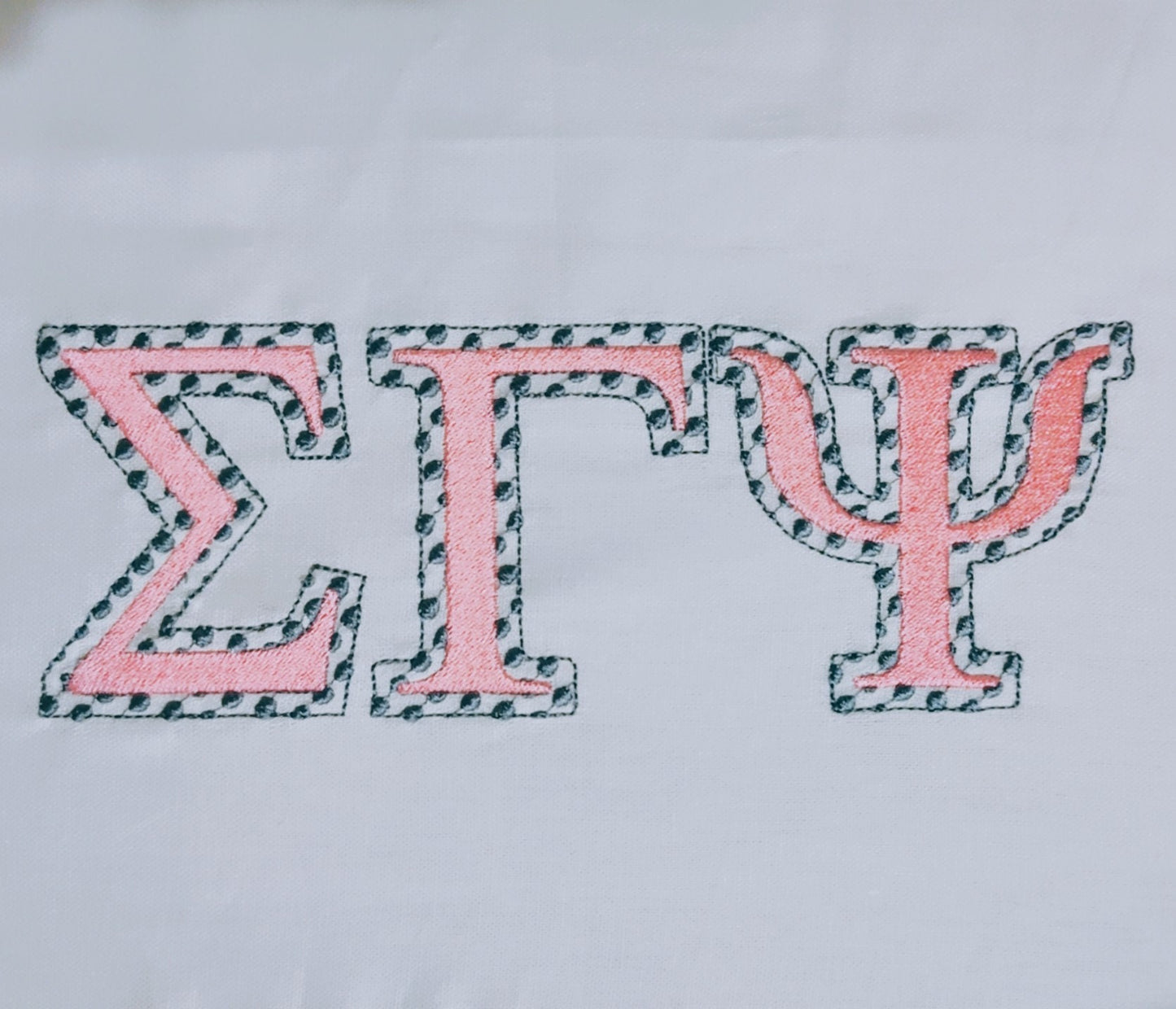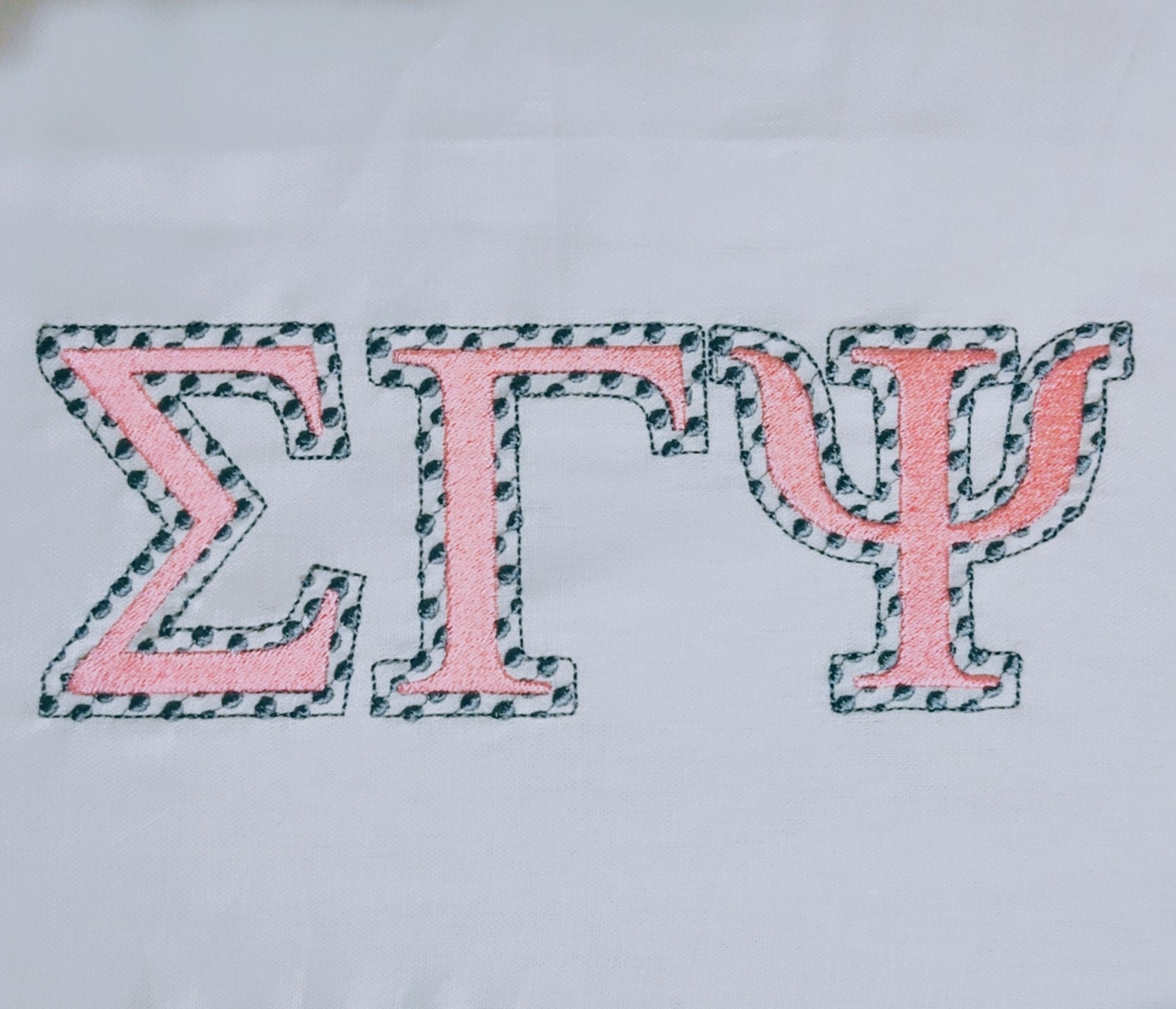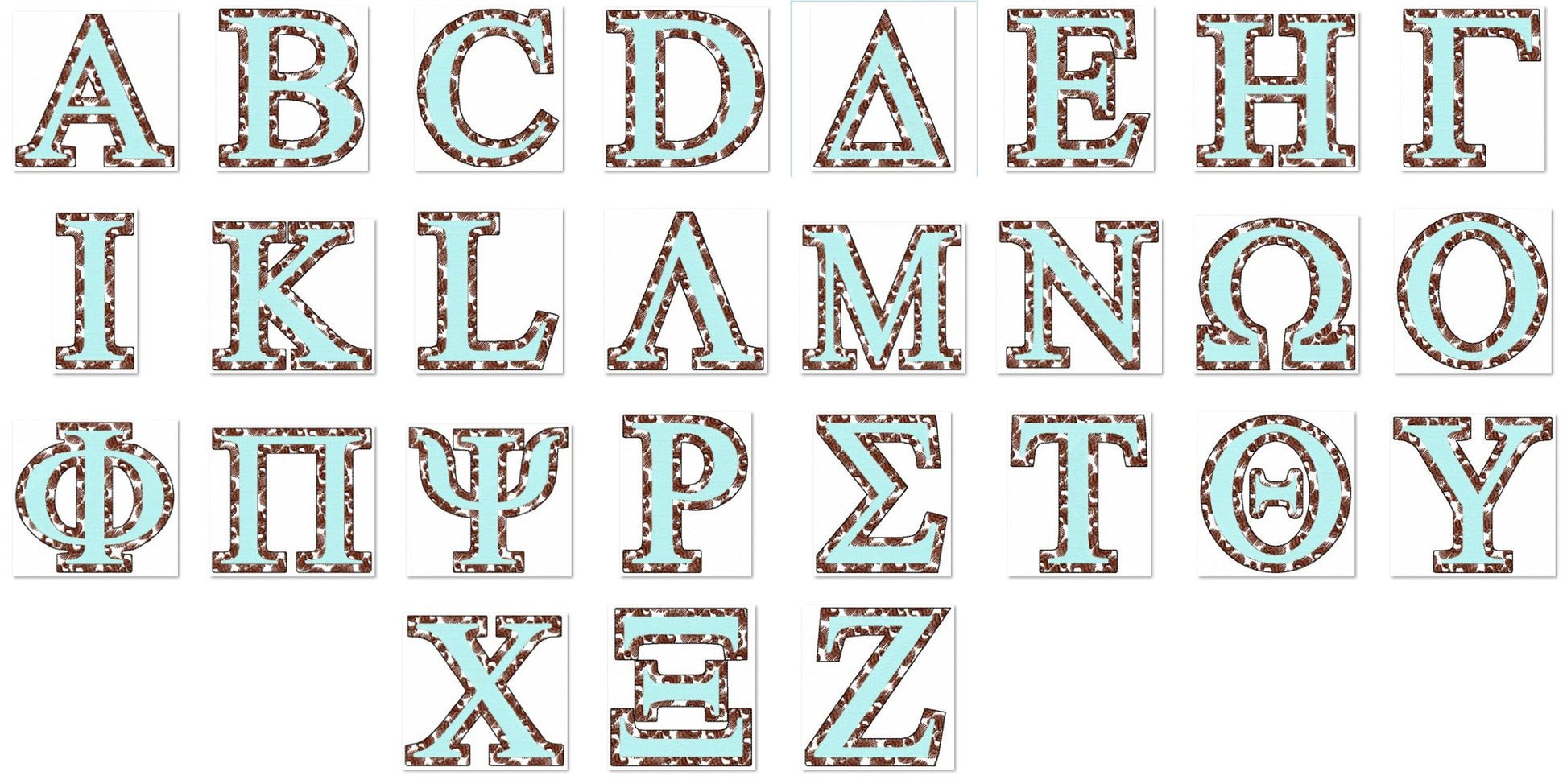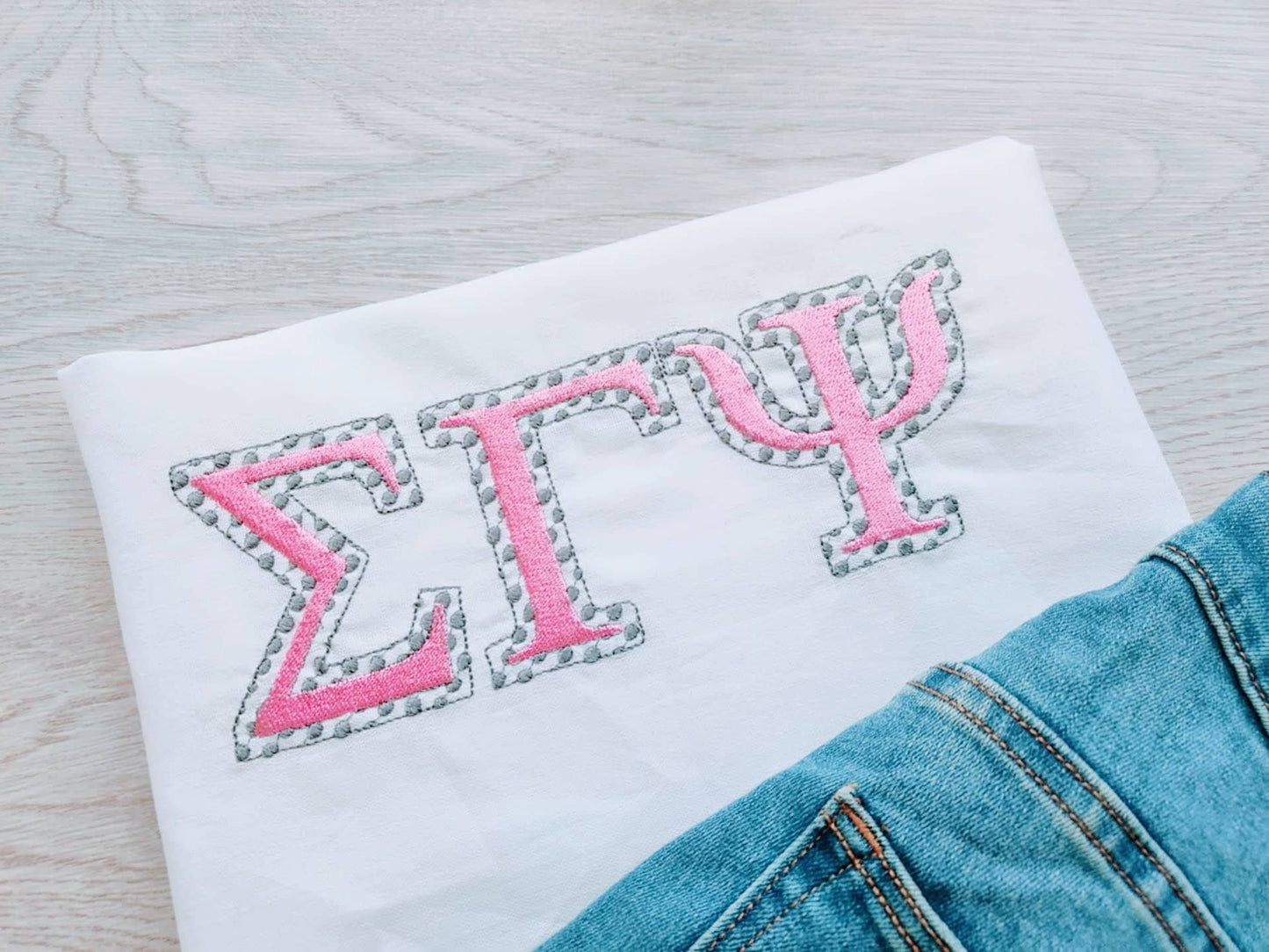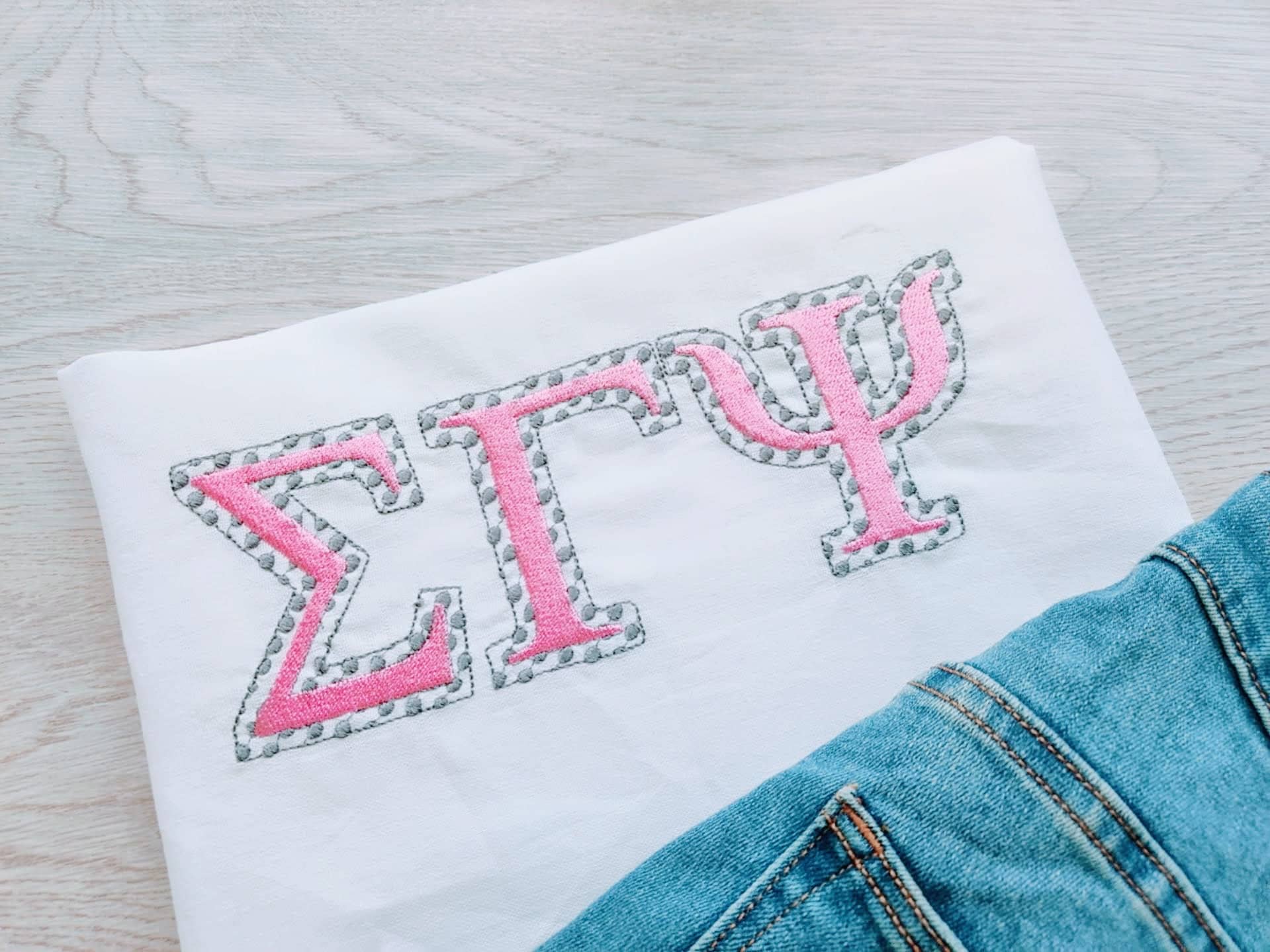
Polka Dot Classic Sororities Greek Font
Or click to open the linkPolka dot Classic sororities Greek alphabet Greek font, alphabet, ABC, letters 2 layers colors Greek font machine embroidery
This listing is for the entire Greek font/alphabet Letters are fill stitched, polka dots are part fo embroidery.